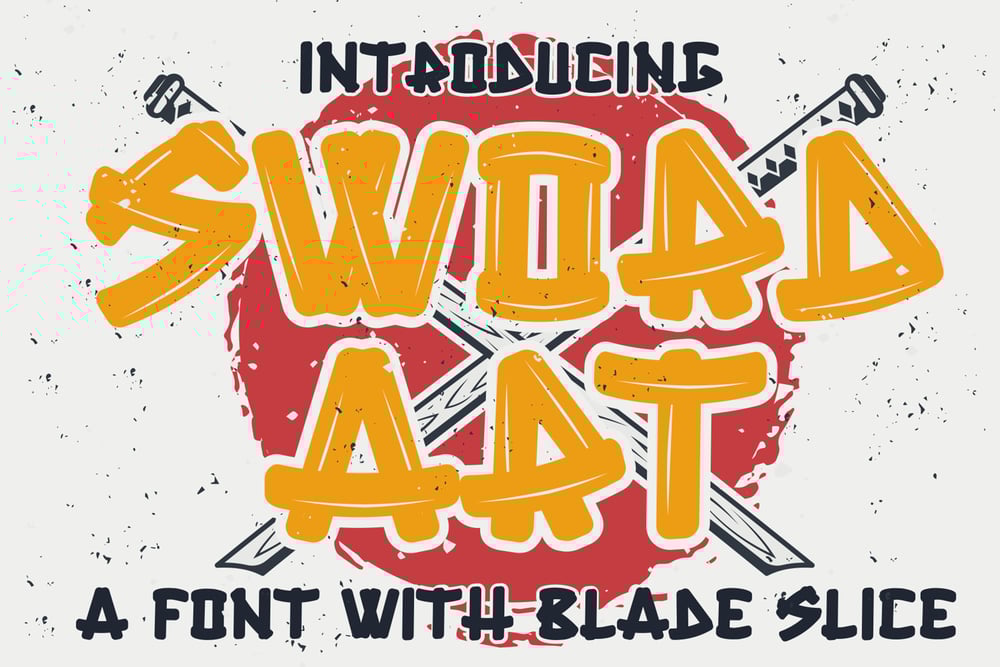
Sword Art Font Family was designed by Sipanji and published by Sipanji21. Sword Art contains 2 styles and family package options. Sword Art is a cute display font that has 2 different styles, namely the slice look and the solid look. Sword Art is a good font to use for various graphic designs, such as poster titles, banners, advertisements, logotypes, and is good for combining various types of icons. This font is also good for packaging, crafting, children’s and adult clothing. apply this font for your various designs to make it more powerful